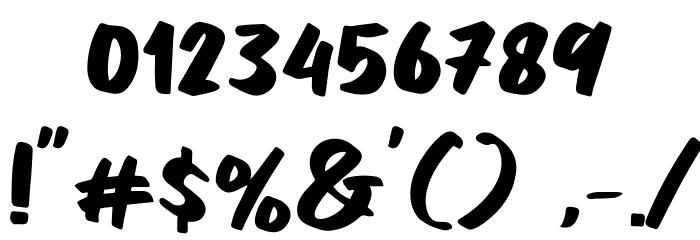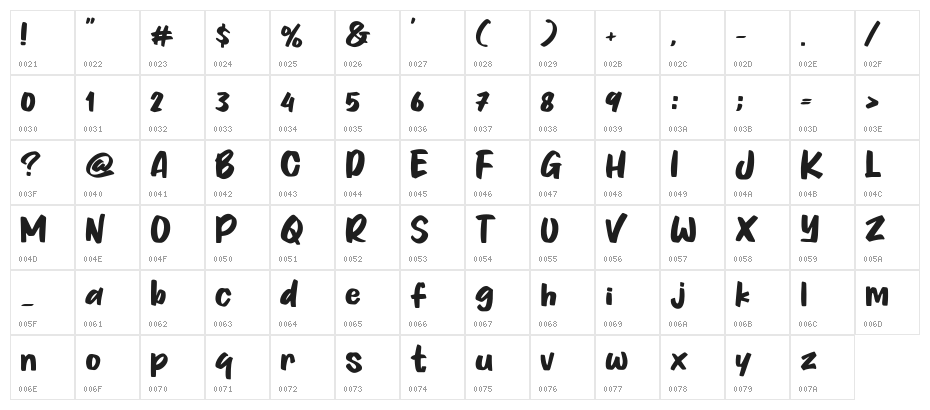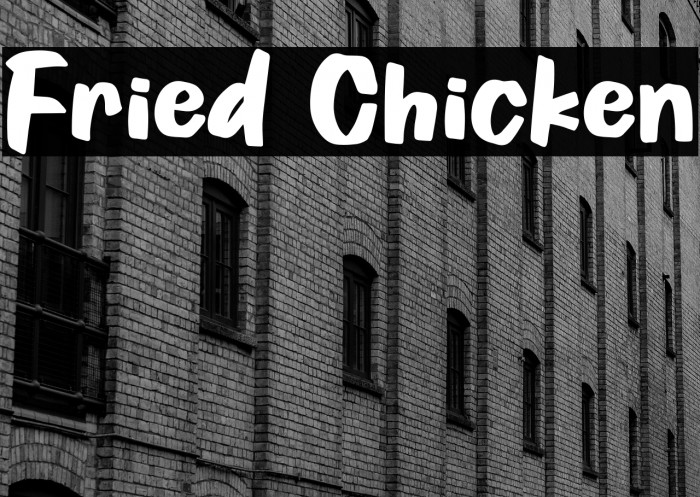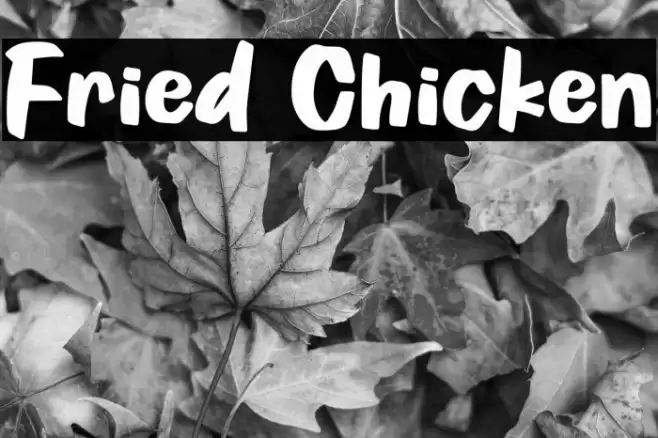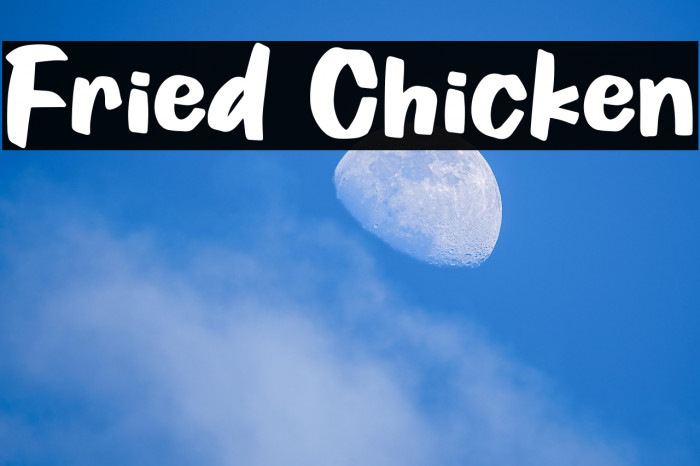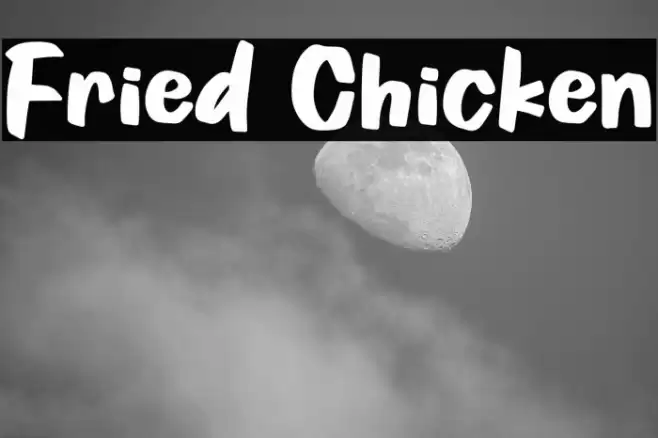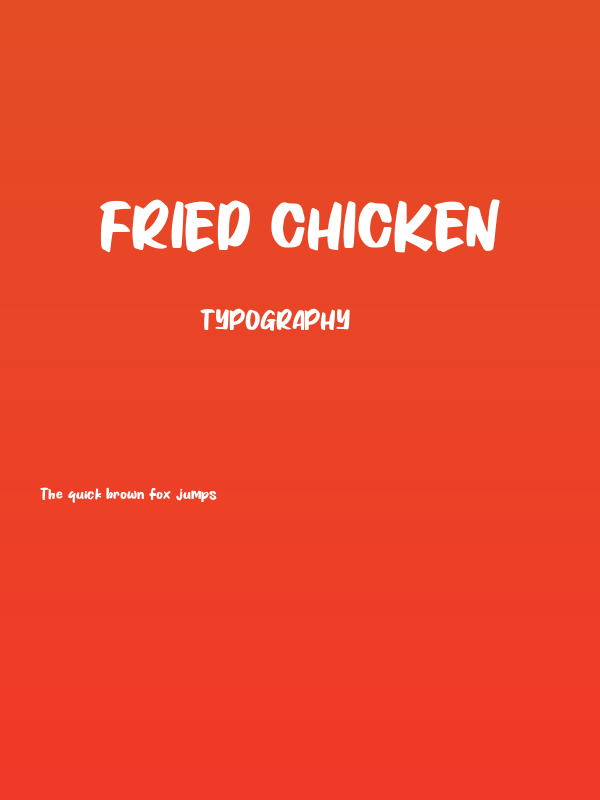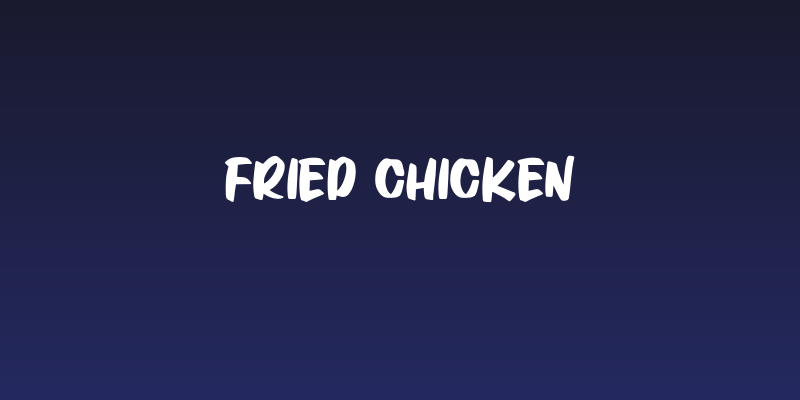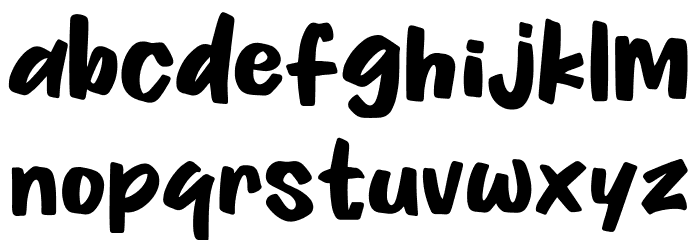
Fried Chicken Font
Fried Chicken Description
This font features a bold and playful handwritten style, characterized by its thick strokes and casual appearance. The letters are slightly irregular, giving it a dynamic and lively feel. The uppercase and lowercase letters maintain a consistent style, with rounded edges and a slight slant that adds to its informal charm. The numbers and special characters follow the same playful design, making it versatile for various uses. The overall look is friendly and approachable, perfect for projects that require a personal touch.
Overall StylePlayful
Use CaseHeadlines, Logos, Casual Invitations
Proposed ProjectsIdeal for children's books, playful branding, casual invitations, and social media graphics.